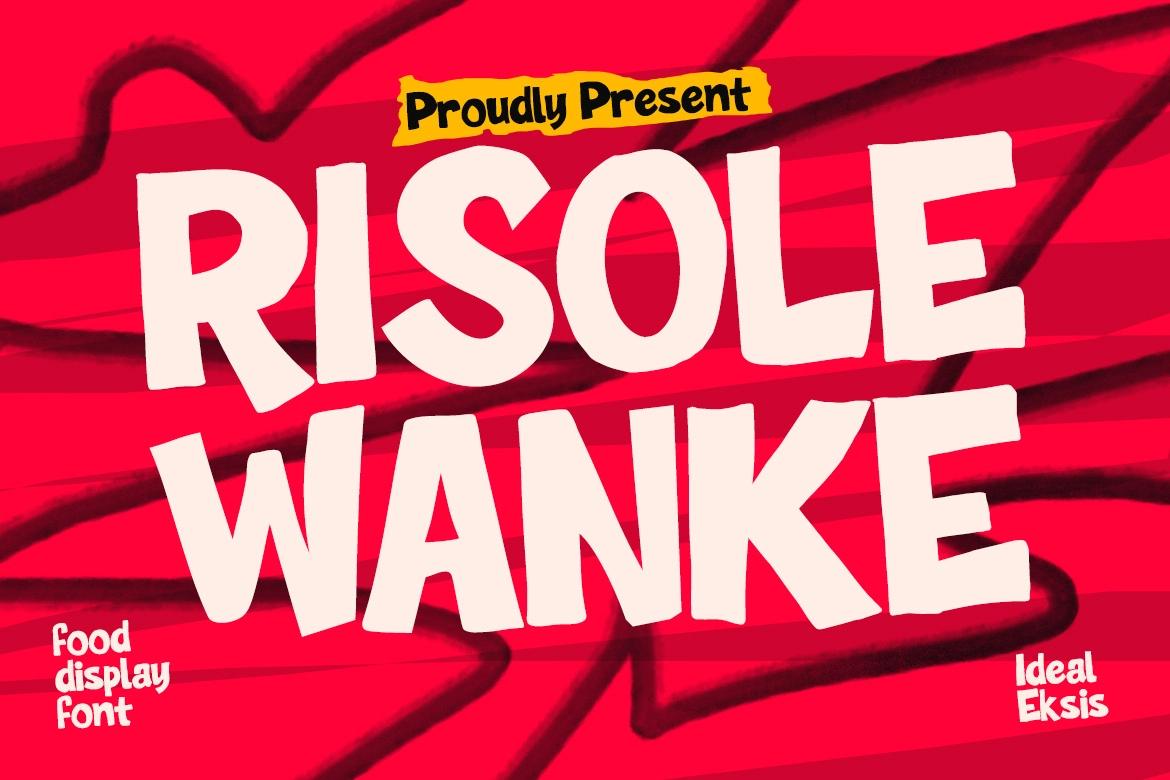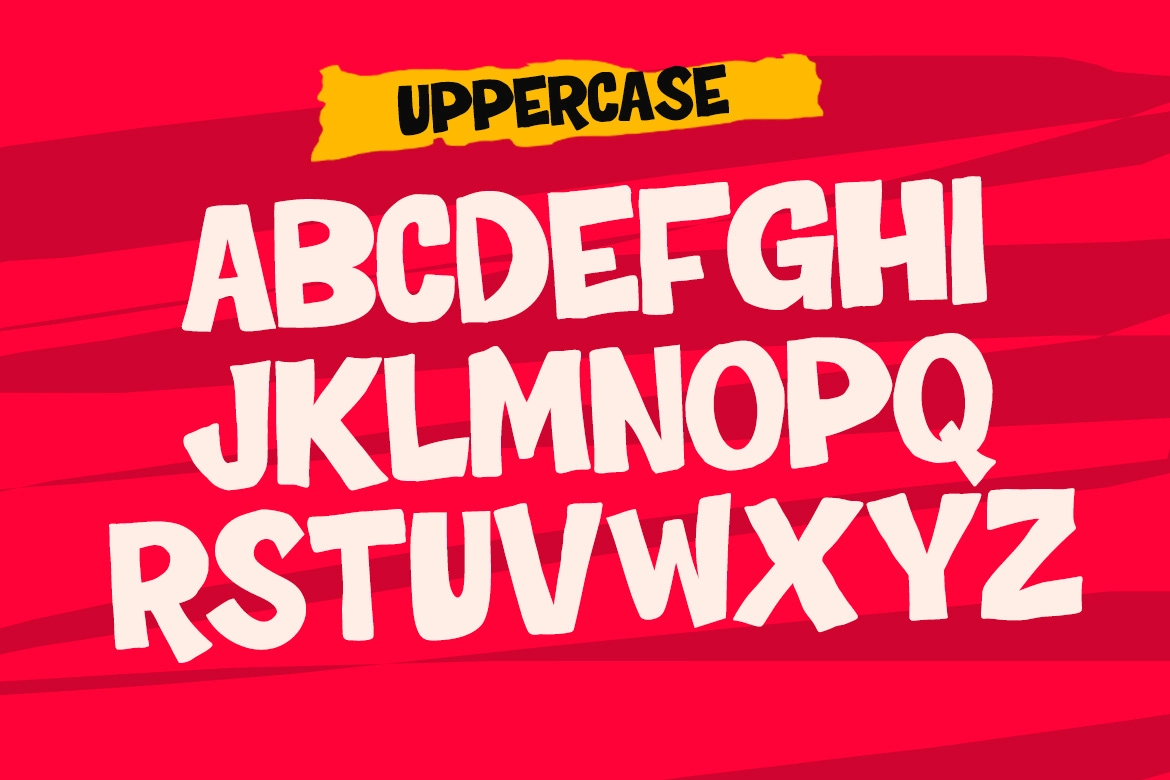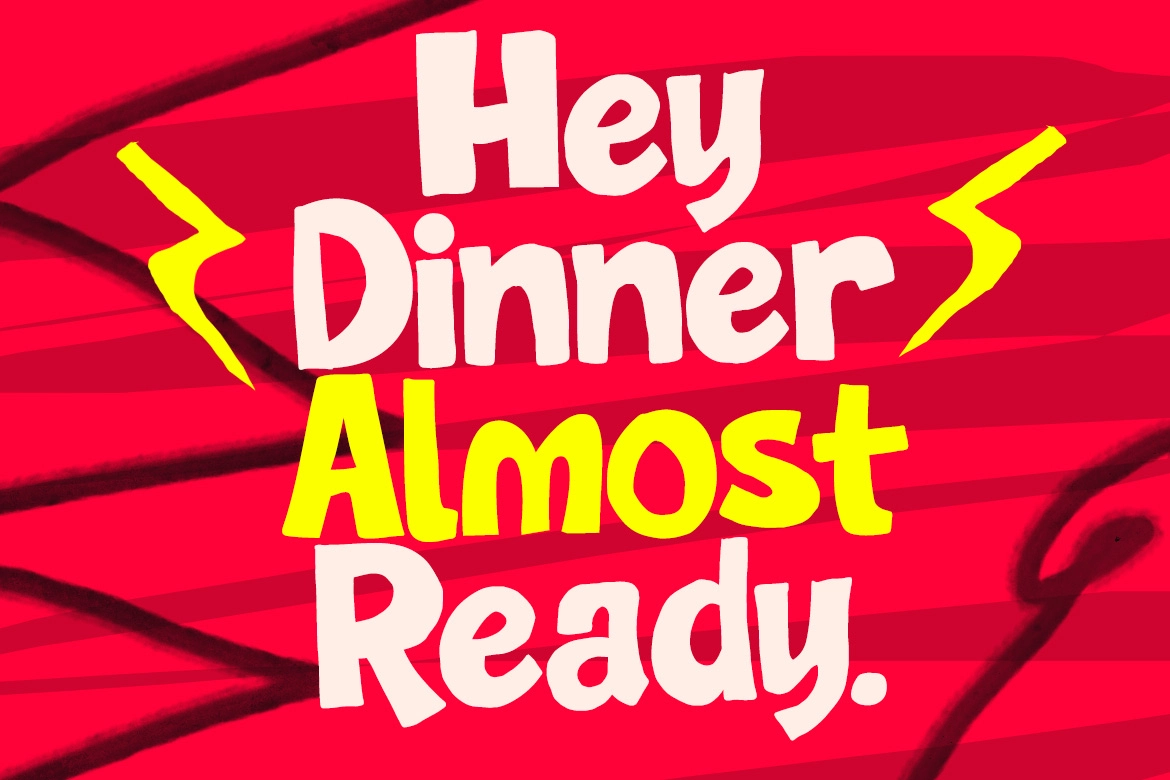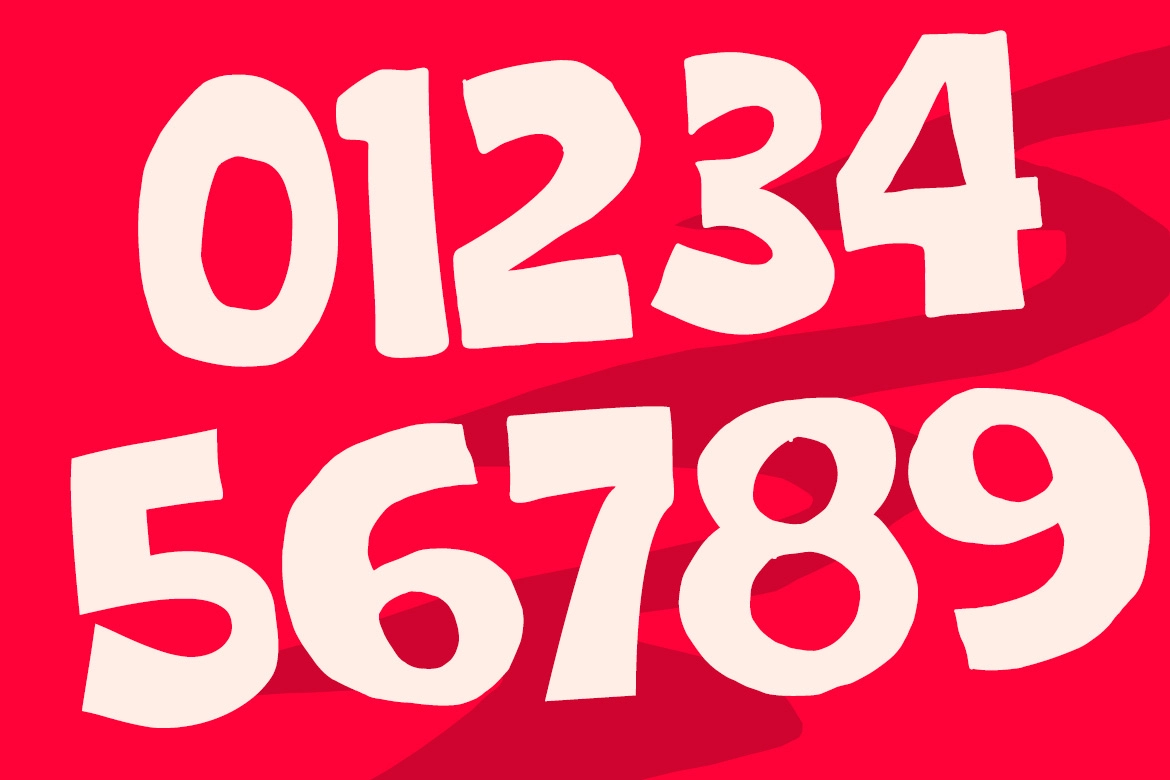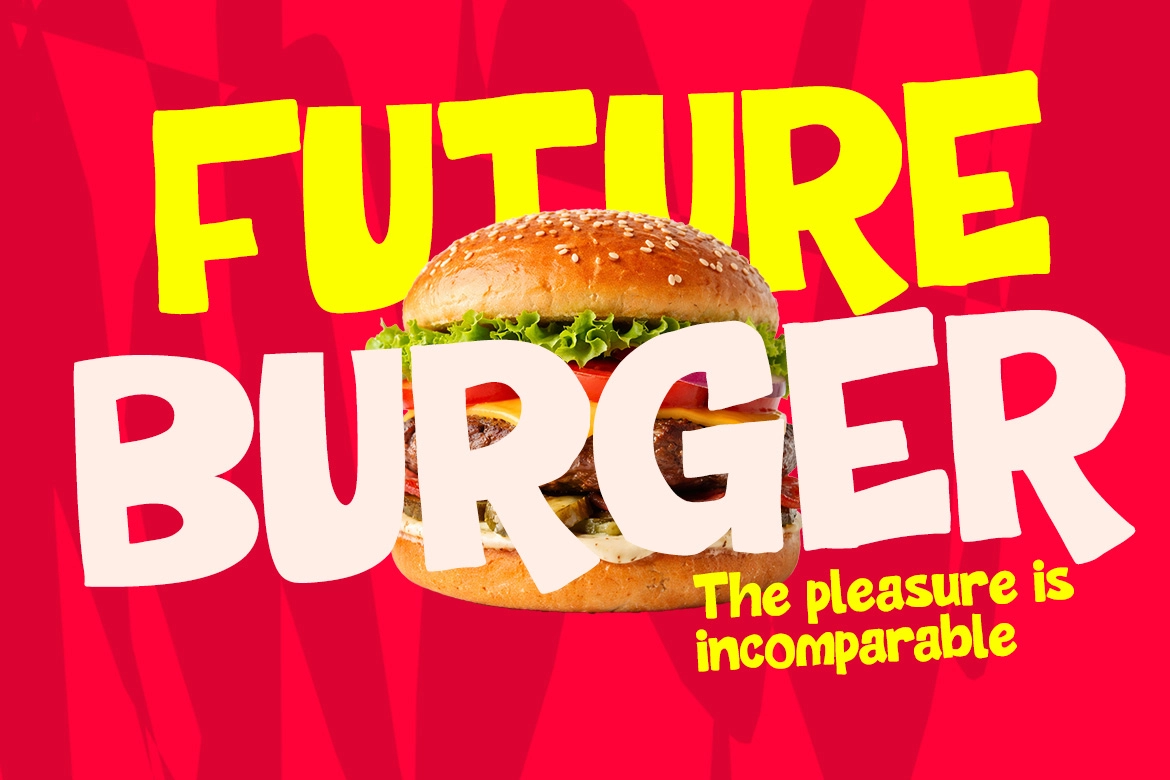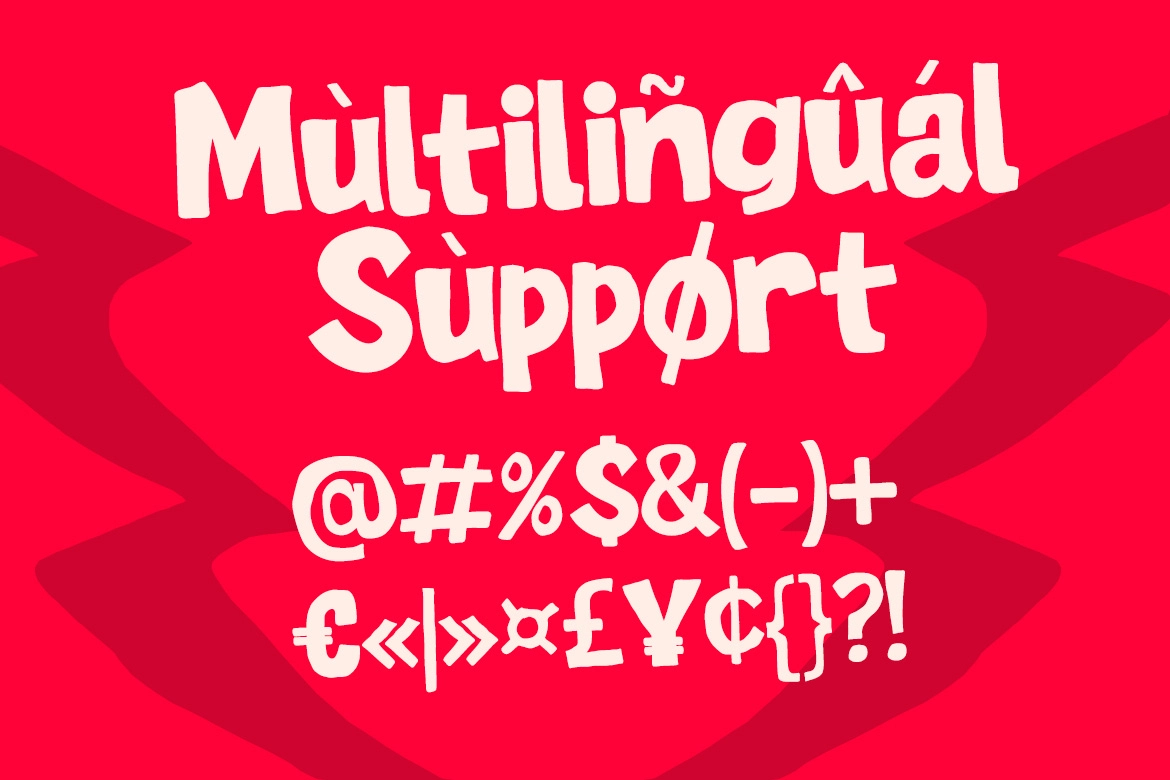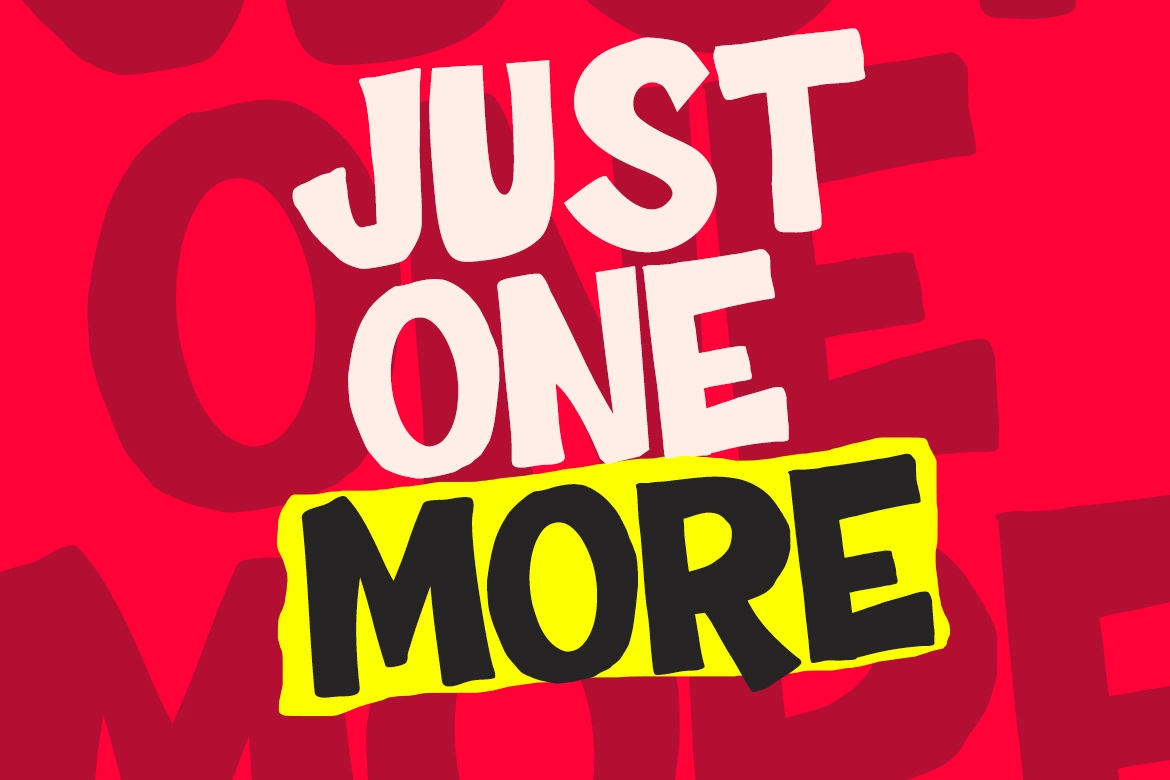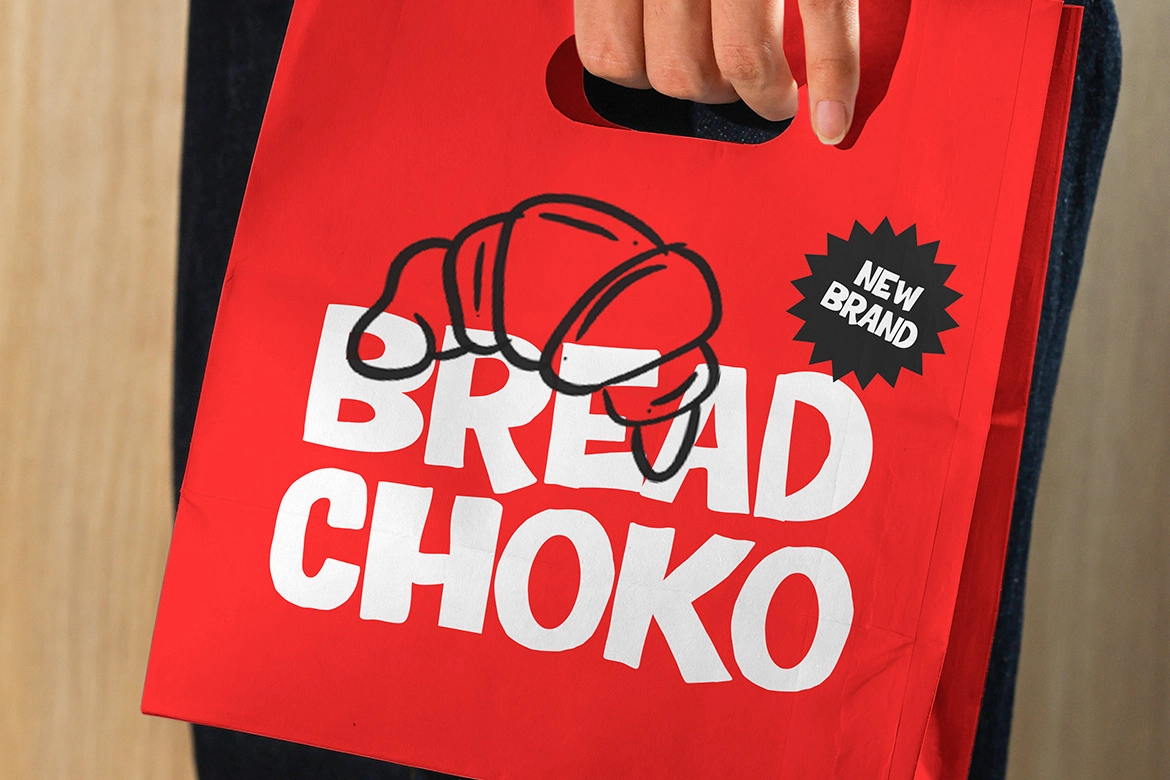
Risole Wanke - Playful Display Font
Risole Wanke - Playful Display Font is built with chunky, hand-drawn letterforms that bring warmth and personality to your work. Its bold weight, rounded shapes, and slightly irregular edges create a lively, organic feel that instantly grabs attention. Designed to feel approachable yet impactful, this playful display font delivers strong visual presence while maintaining excellent readability in headlines, packaging, and promotional graphics.
With its bouncy baseline and dynamic character proportions, Risole Wanke - Playful Display Font adds rhythm and movement to your layouts. It’s especially well-suited for food branding, casual identities, and vibrant social media visuals where energy and friendliness are key. Whether you're working on packaging, menus, or bold posters, this font helps your message stand out with a fun, modern twist.
- Uppercase and lowercase letters
- Numerals and Punctuation